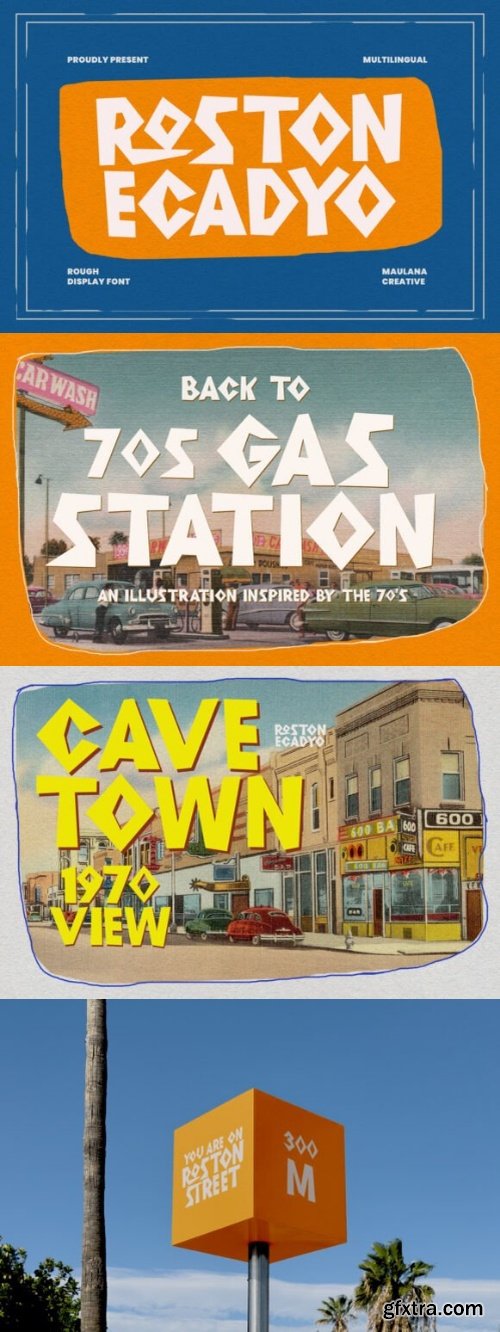
CreativeMarket - Roston Ecadyo Sans Serif Display Font
- Roston Ecadyo is a bold and edgy rough display font with tribal-inspired, chiseled letterforms that pack a visual punch. Its sharp angles and hand-cut vibe make it perfect for street art, posters, album covers, and anything that demands strong, fearless typography. Multilingual support and its handcrafted energy make Roston Ecadyo stand out in any project that craves a wild, artistic edge.